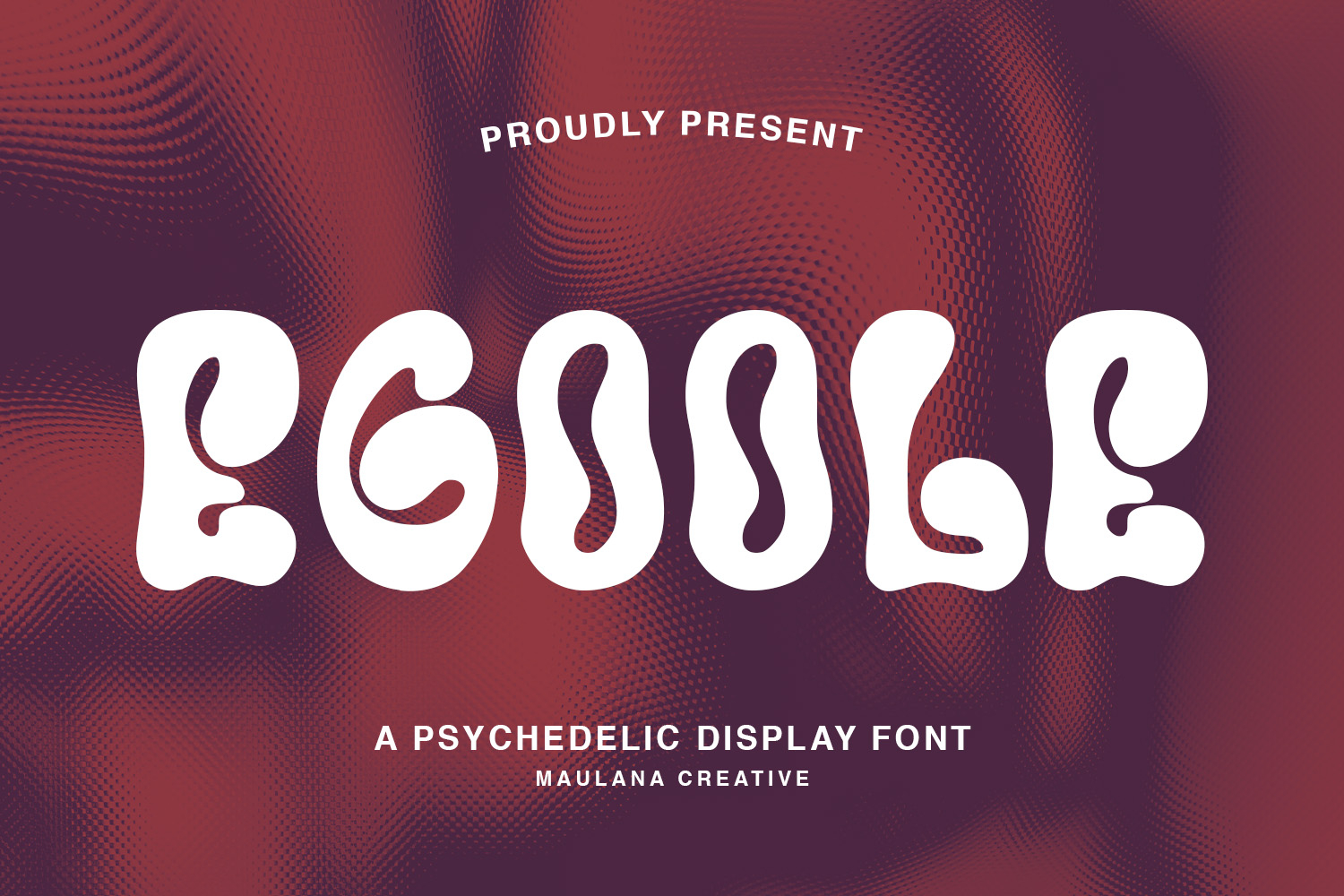
Egoole is a psychedelic display handwritten font. With bold stroke and fun character. To give you an extra creative work. Egoole font support multilingual more than 100+ language. This font is good for logo design, Social media, Movie Titles, Books Titles, a short text even a long text letter and good for your secondary text font with sans or serif. Make a stunning work with Egoole is a psychedelic display handwritten font.